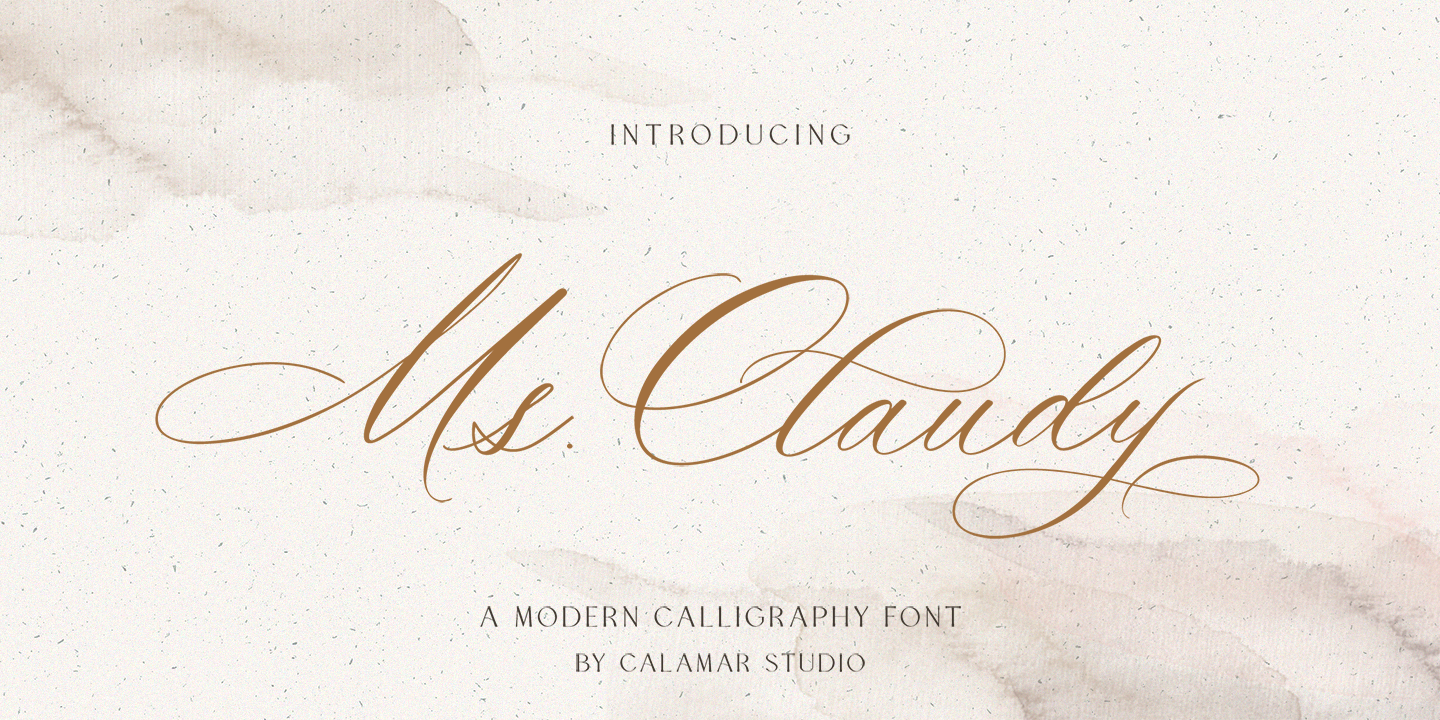
Ms Claudy Font is perfect for elegant feminine business branding, sophisticated women's fashion boutiques, graceful beauty salon marketing, refined ladies' club signage, delicate wedding planner services, charming boutique hotel promotions, personalized stationery design, feminine lifestyle magazine layouts, elegant jewelry store branding, and distinguished women's professional services. Its refined feminine character makes it ideal for projects requiring sophisticated femininity and personal elegance authenticity.
What makes Ms Claudy Font exciting is its graceful embodiment of sophisticated femininity and professional elegance with refined letterforms and distinguished characteristics that capture the essence of modern feminine leadership and sophisticated personal branding excellence. The font features elegant proportions, refined stroke details, and sophisticated character construction that create authentic feminine atmosphere and professional appeal. Its distinguished personality brings grace and credibility to contemporary designs while maintaining the clarity essential for professional communications and feminine brand presentations. The carefully crafted elegant elements ensure visual sophistication while preserving the distinctive character that embodies the essence of feminine professionalism and sophisticated excellence.
Ms Claudy Font comes in multiple elegant variations including Light, Regular, Medium, Bold, and Professional styles. Each family member maintains the distinctive feminine character while offering comprehensive flexibility for sophisticated typography and feminine brand system development. The complete font family includes stylistic alternates, elegant flourishes, and feminine symbols that provide extensive tools for creating immersive sophisticated design experiences and authentic feminine brand storytelling.
Whether you're developing feminine professional brands, women-focused services, or sophisticated lifestyle projects, Ms Claudy Font Free Download provides the refined elegance needed to communicate with professional women and sophisticated audiences who appreciate feminine leadership and elegant presentation. The font's sophisticated appeal resonates with professional women, feminine entrepreneurs, and luxury service providers seeking authentic feminine credibility and professional sophistication. Its comprehensive character set includes feminine symbols and professional marks, making it perfect for creating complete sophisticated brand systems and memorable feminine storytelling across diverse professional applications and elegance-focused design projects that celebrate feminine professionalism and sophisticated excellence.